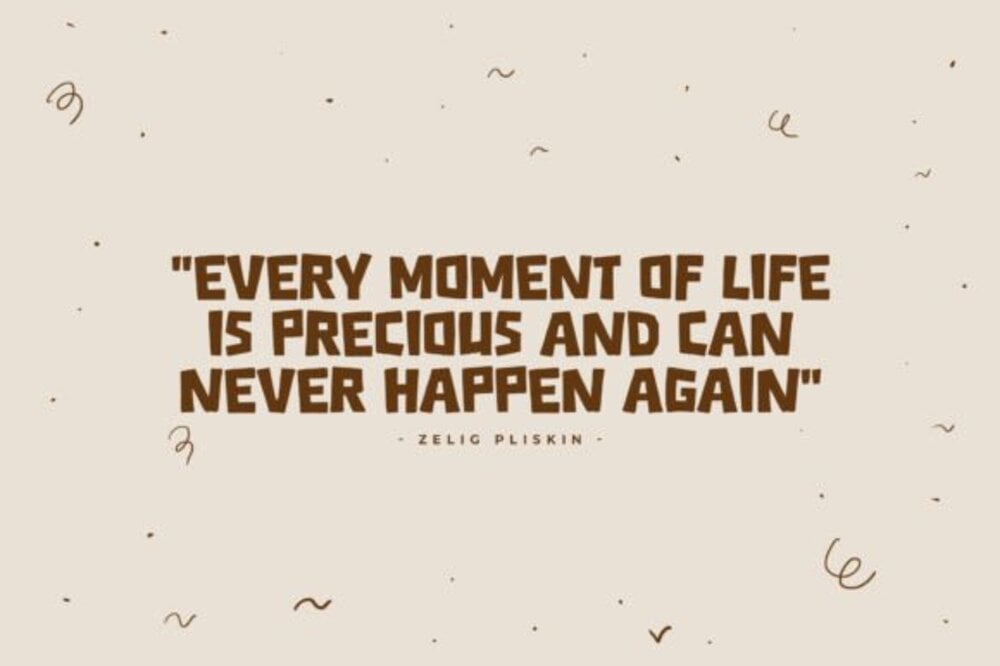
Newyear Coffee Font
Newyear Coffee Font is a warm, stylish typeface that blends the cozy essence of coffee with the celebratory spirit of the New Year. Its smooth, flowing curves and playful strokes create an inviting and festive atmosphere. Perfect for café menus, party invitations, or holiday-themed designs, this font adds a touch of warmth and joy, making any project feel extra special.